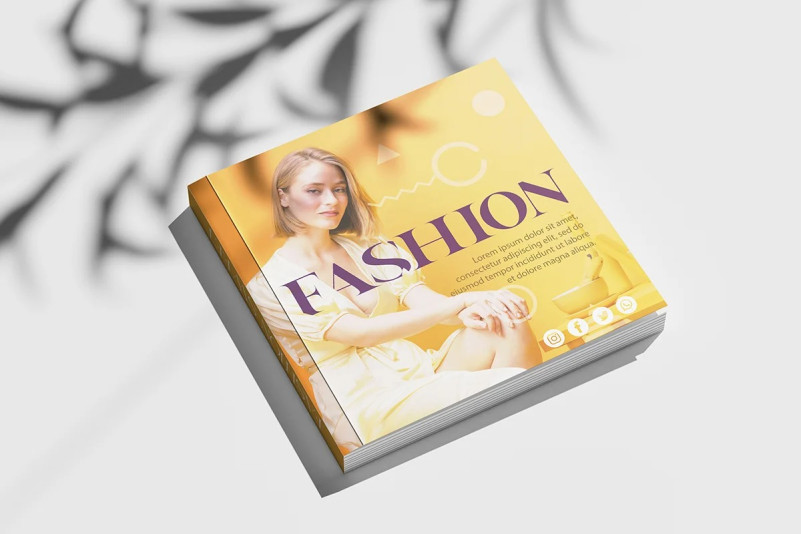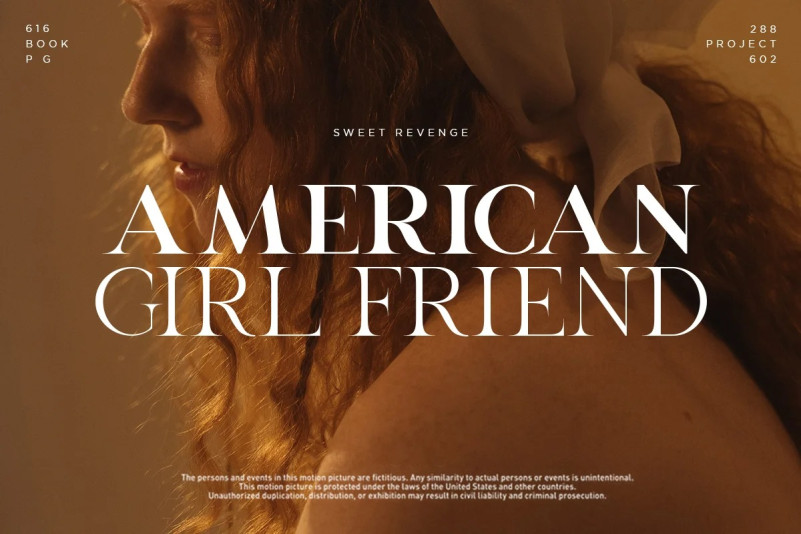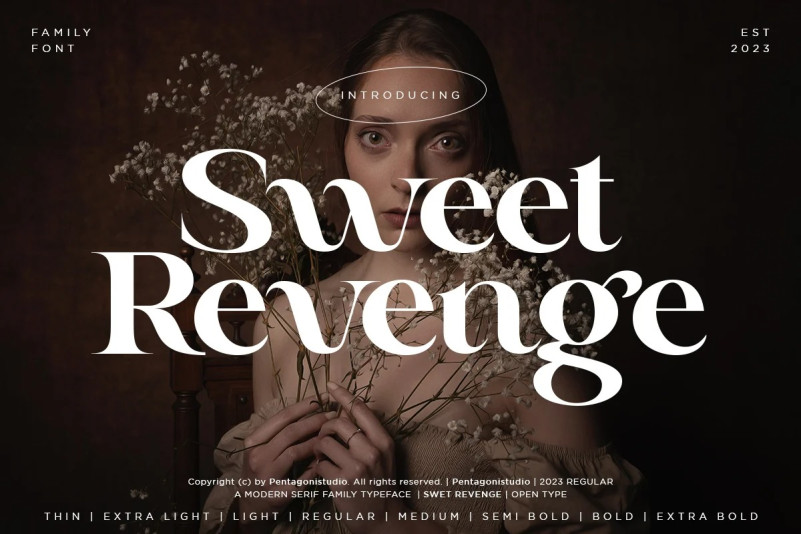
Sweet Revenge Font
Sweet Revenge Font Is A Modern Family Font Serif Including 8 Font Style. It can easily be matched to an incredibly large set of projects, so add it to your creative ideas and notice how it makes them stand out!